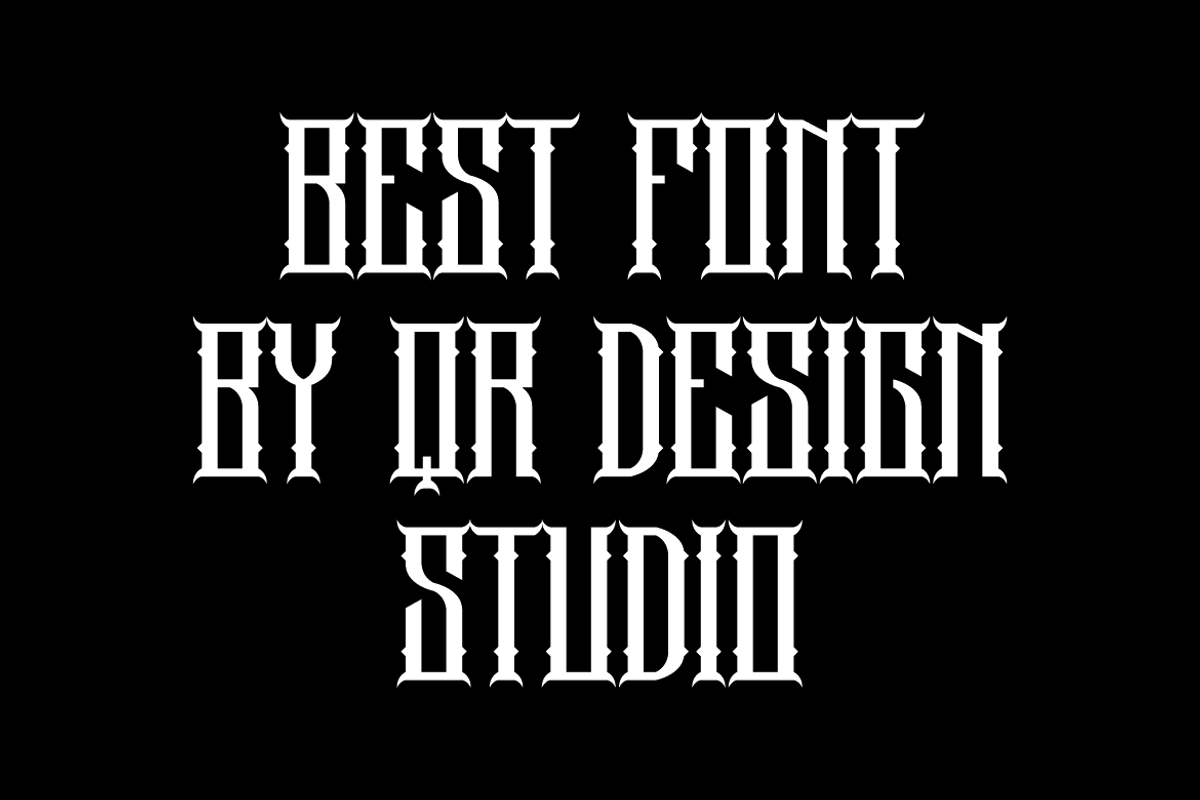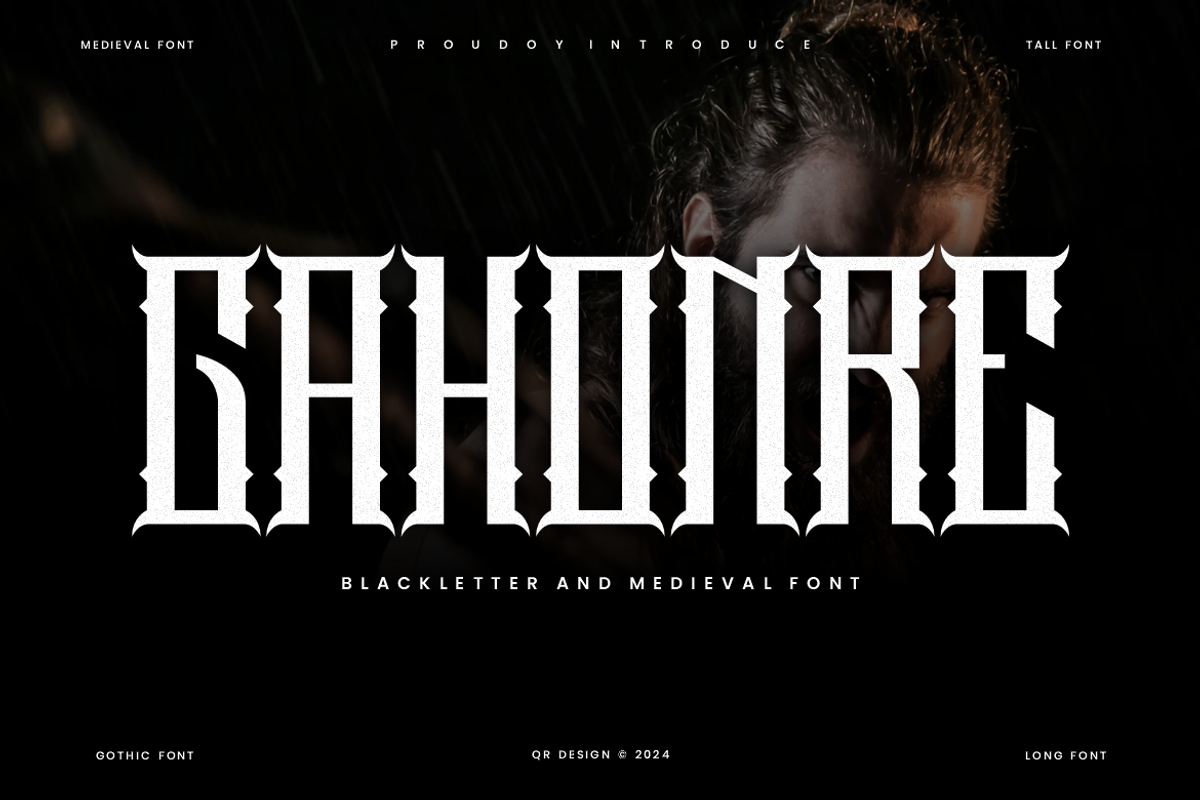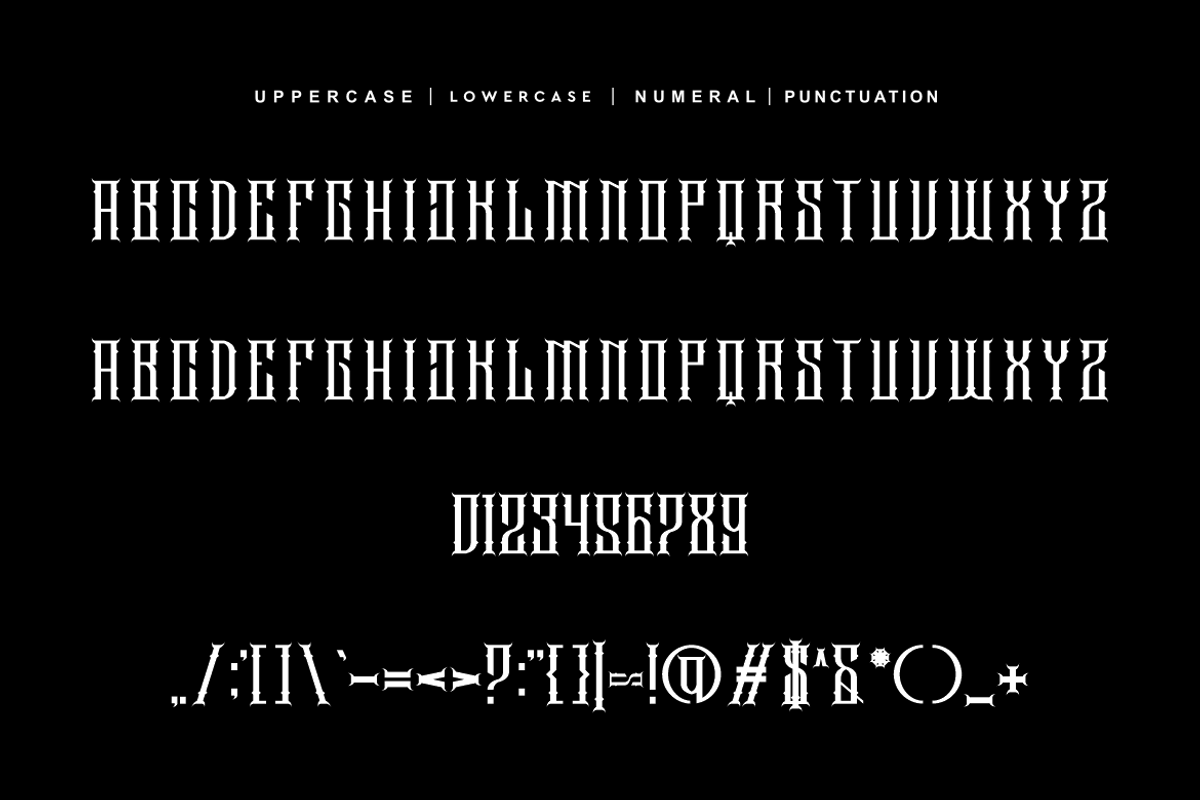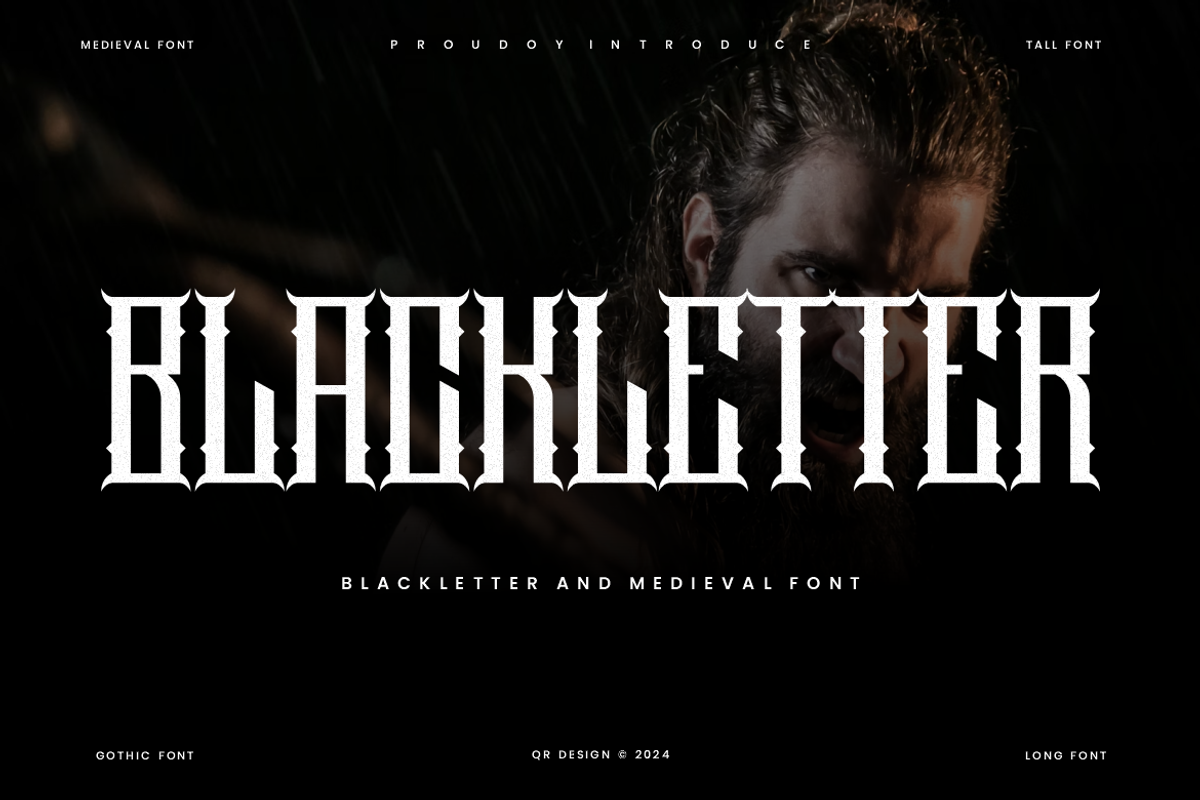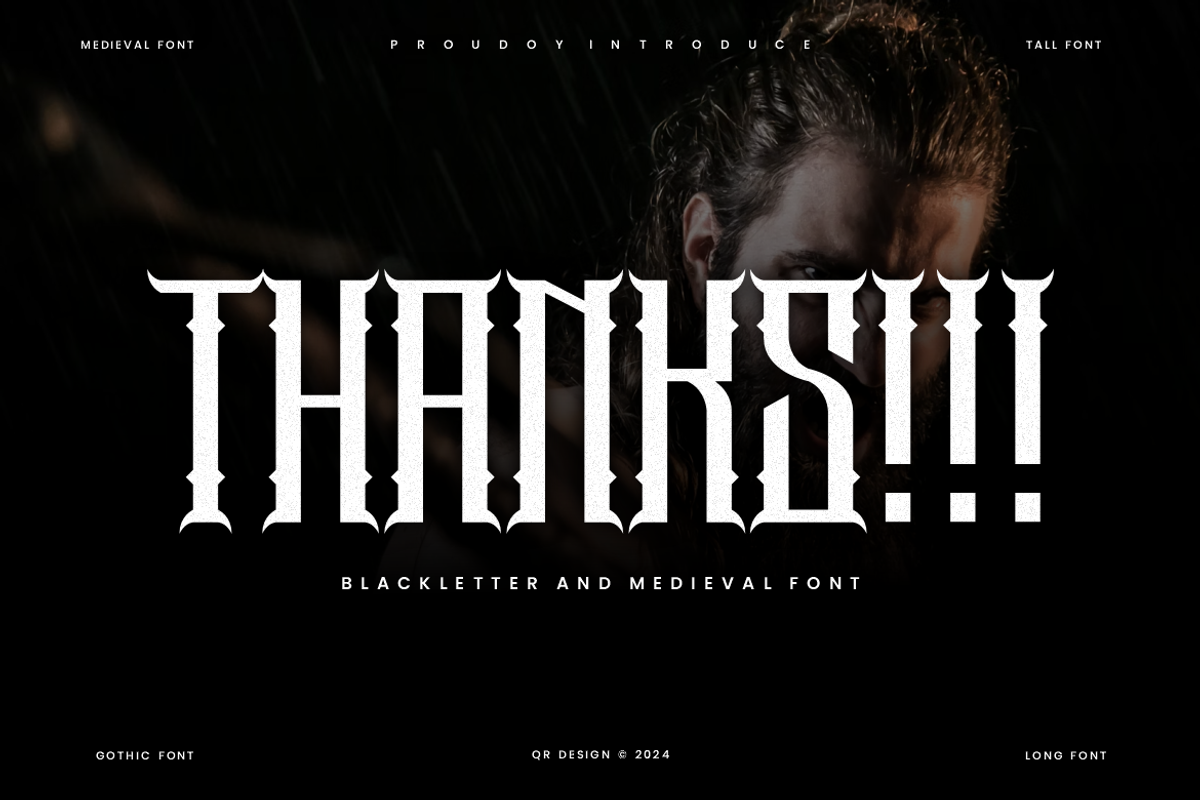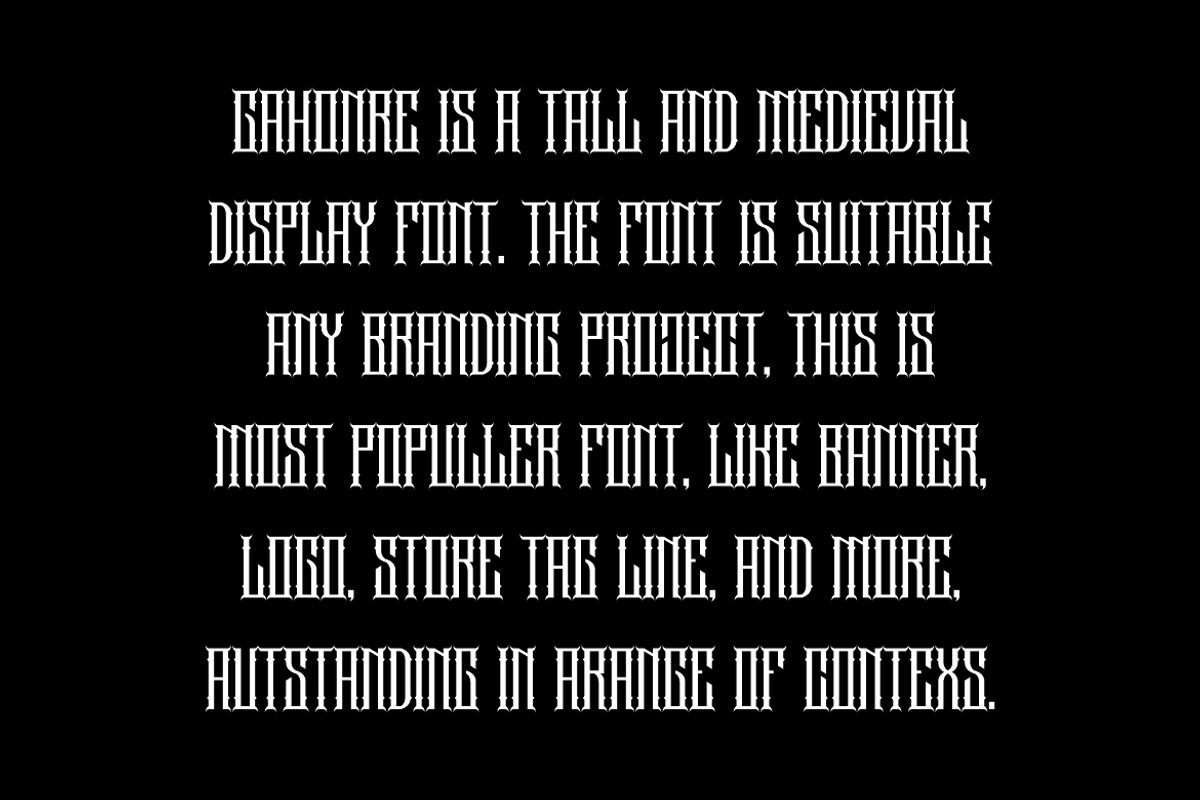
Gahonre - Medieval & Gothic Font
Gahonre - Medieval & Gothic Display Font is a bold and authentic display font. The font is suitable for any branding project like poster, logo, sport, and many more. Outstanding in a wide range of contexts.